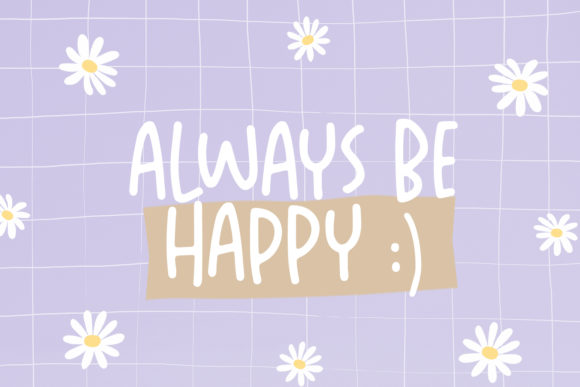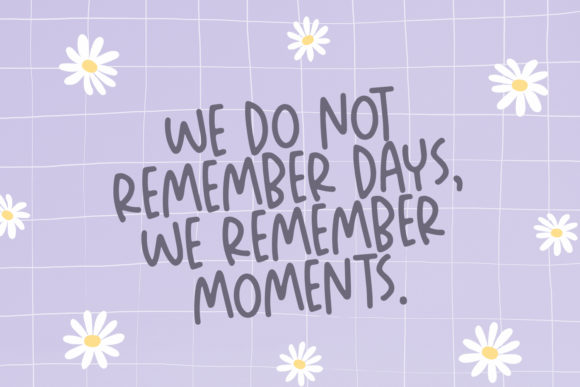
About Things to Remember Font
Things To Remember is a chill and friendly handwritten font. Its natural and unique style makes it incredibly fitting to a large pool of designs. Level up your creative project with this thin yet memorable font.